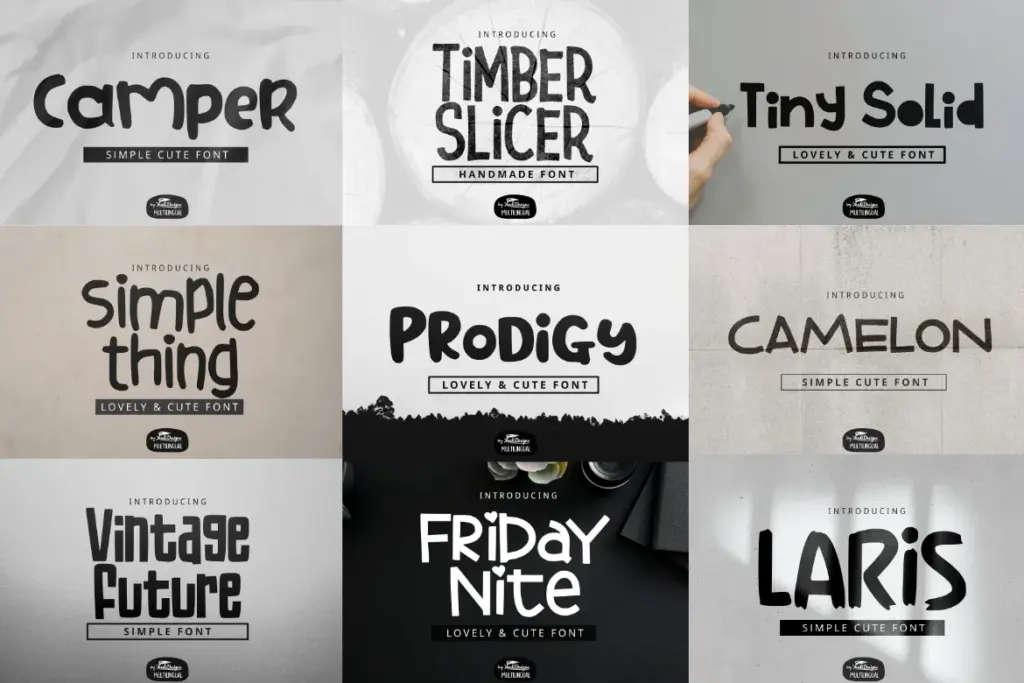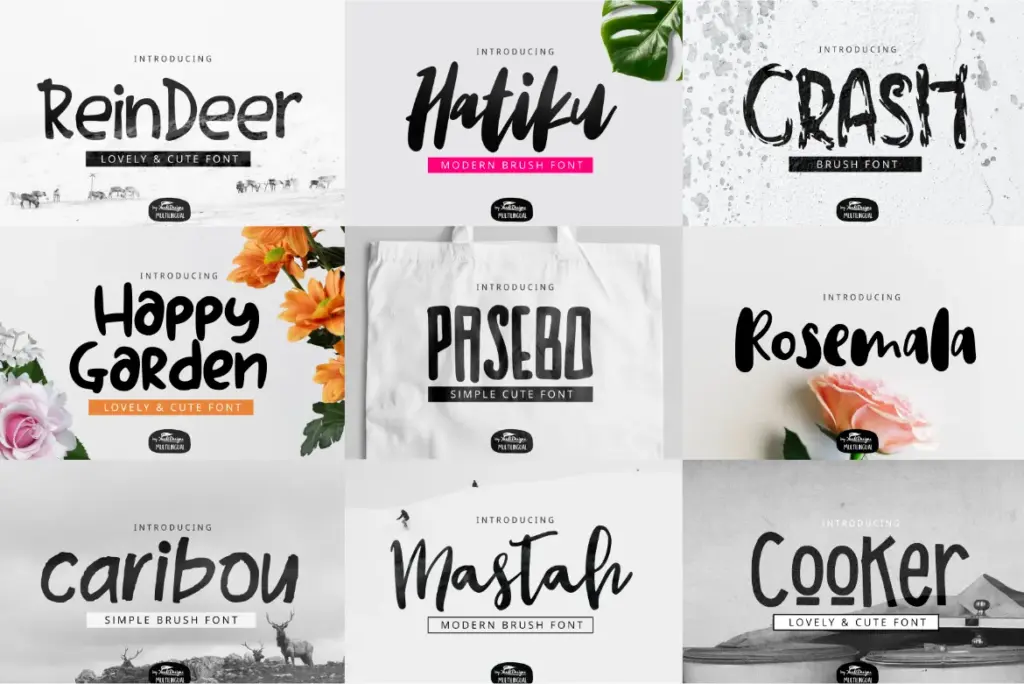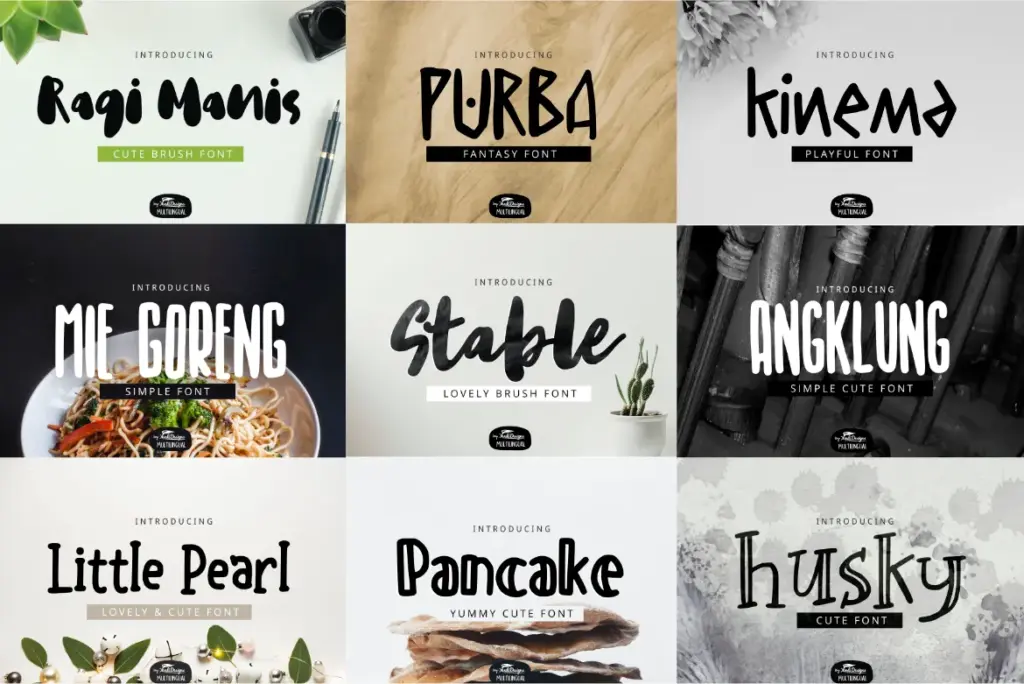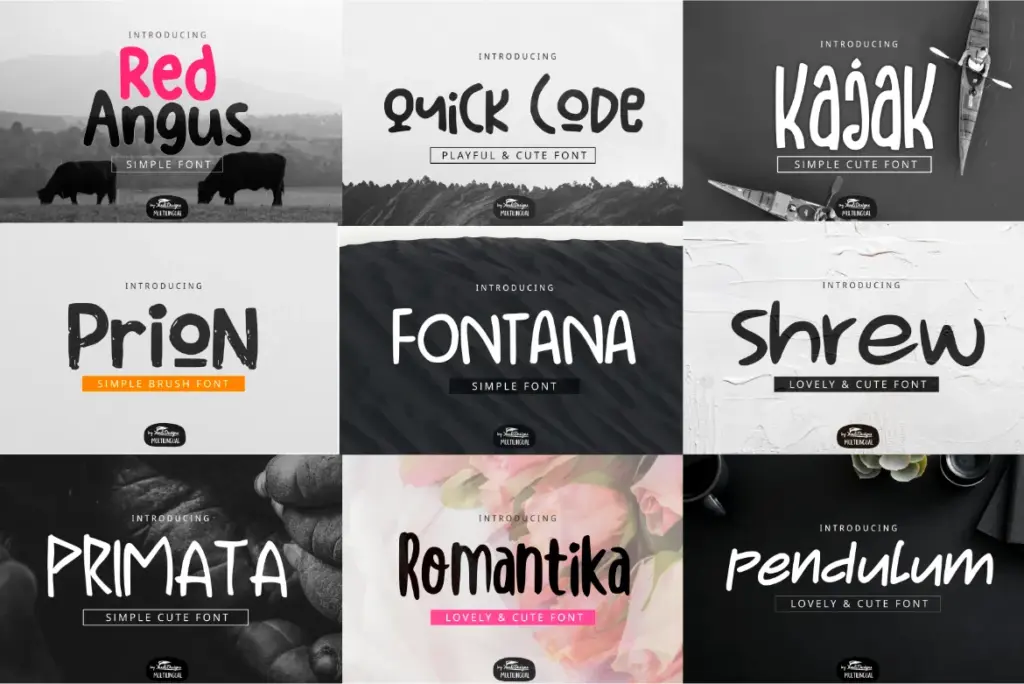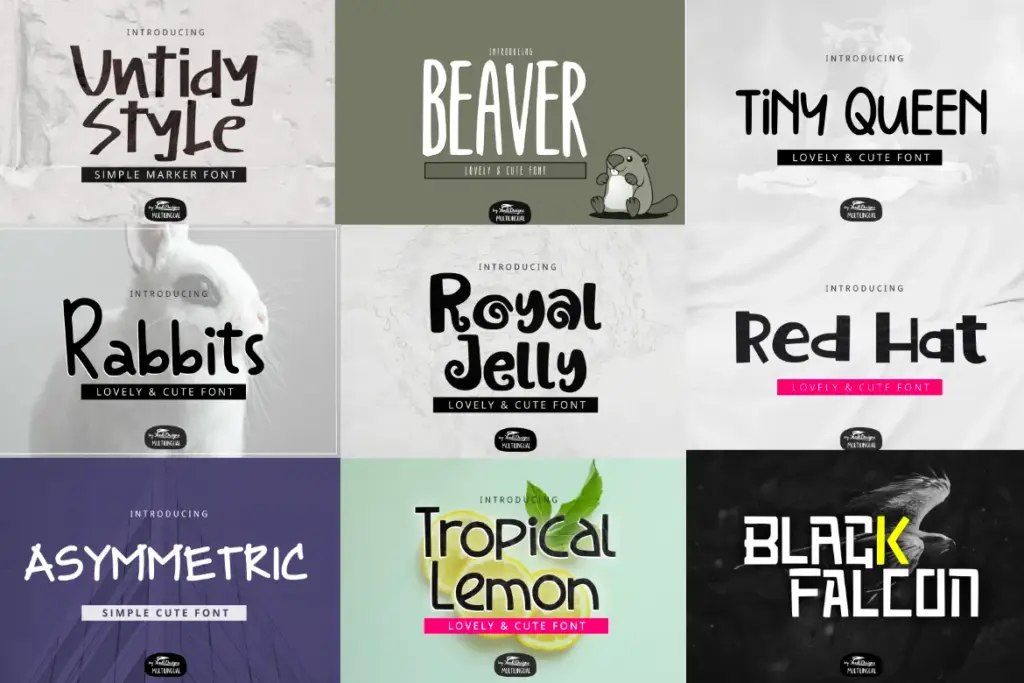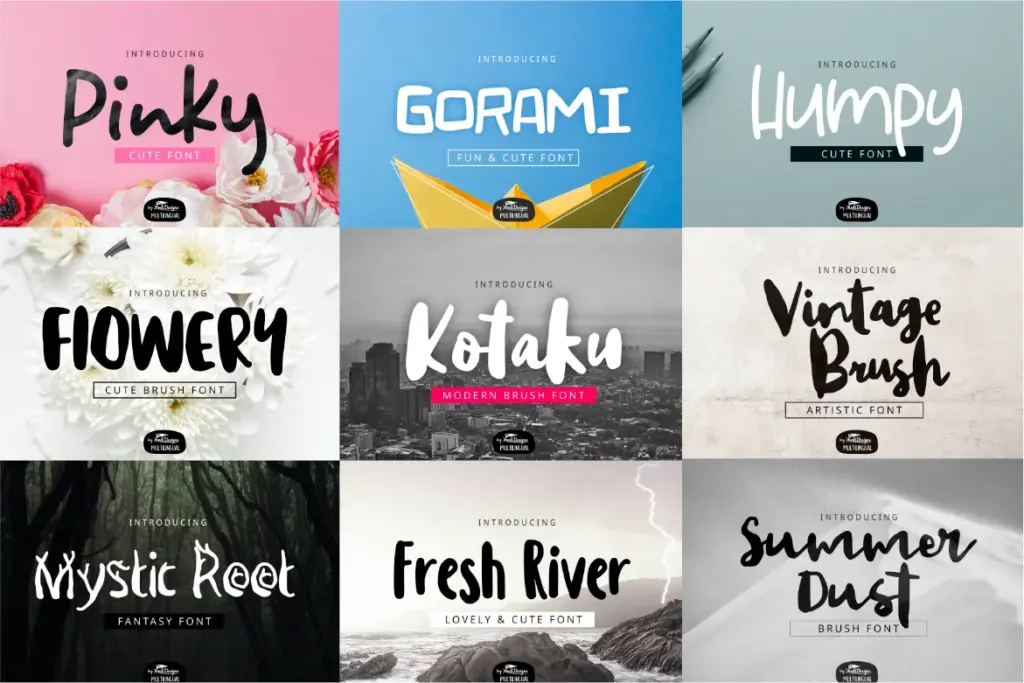
Mixed Huge Fonts Bundle
A premium collection of 68 unique mixed fonts across script, display, and regular styles.
Designed for versatility, these fonts include a variety of styles – modern, vintage, handwritten, brush, playful, and decorative.
Suitable for branding, marketing materials, crafting, websites, social media, and artistic designs, they ensure visual impact and usability.
This Mixed Huge Fonts Bundle Includes:
Angklung Font
Apricot cake Font
Asymmetric Font
Beaver Font
Big Whale Font
Black Falcon Font
Camelon Font
Camper Font
Caramel Font
Caribou Font
Childish Font
Cooker Font
Crash Font
Creamy Pastel Font
Flowery Font
Fontana Font
Fresh River Font
Friday Nite Font
Gateway Font
Gorami Font
Great Ape Font
Happy Garden Font
Hatiku Font
Humpy Font
Husky Font
InkPen Font
Jelajah Font
Kajak Font
Kinema Font
Kotak Font
Kotaku Font
Laris Font
Lemonty Font
Little Pearl Font
Mastah Font
Mie Goreng Font
Mystic Root Font
Pancake Font
Pasebo Font
Pendulum Font
Pinky Font
Primata Font
Prion Font
Prodigy Font
Purba Font
Quick Code Font
Rabbits Font
Ragi Manis Font
Red Angus Font
Red Berry Font
Red Hat Font
Reindeer Font
Romantika Font
Rosemala Font
Royal Jelly Font
Shrew Font
Simple Thing Font
Stable Font
Summer Dust Font
The Marlin Font
Timber Slicer Font
Tiny Queen Font
Tiny Solid Font
Tribal Font
Tropical Lemon Font
Untidy Style Font
Vintage Brush Font
Vintage Future Font
- 68 Mixed Fonts
- Category: Script, Display, & Regular Font Styles
- Types: Modern, Vintage, Handwritten, Brush, Bold, Playful, & Decorative Fonts
Preview Of The Mixed Huge Fonts: